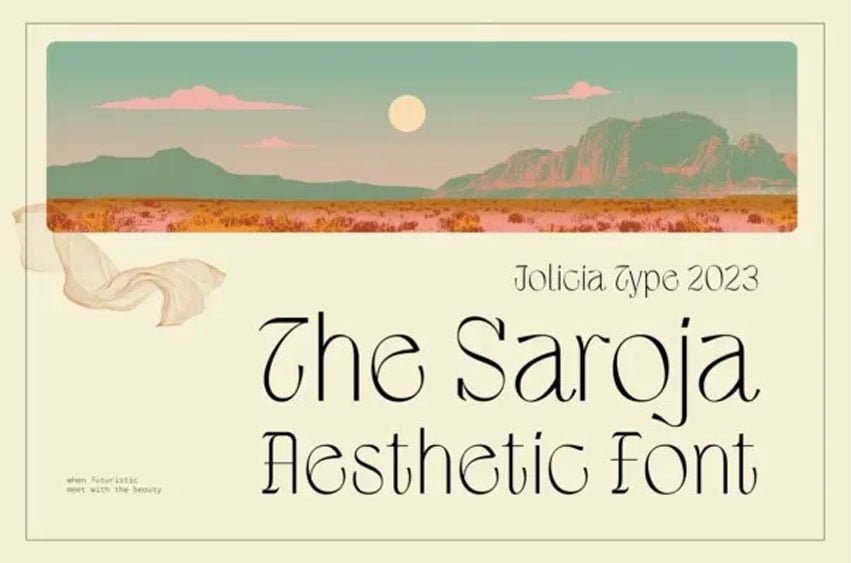
The Saroja Font
The Saroja Font is a meticulously crafted display font type that brings captivating aesthetics to every design project. With distinctive characteristics and various artistic elements, this font breathes new life into your text.